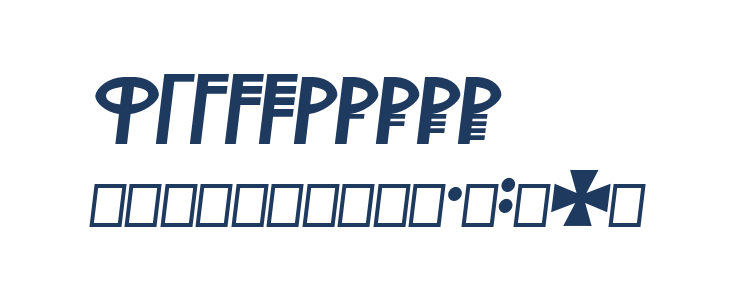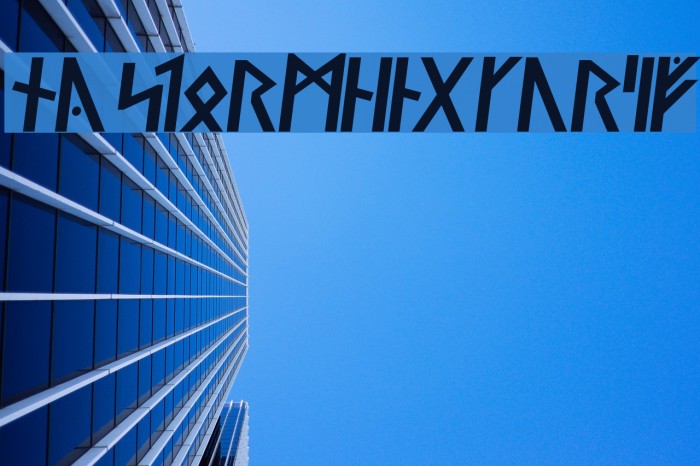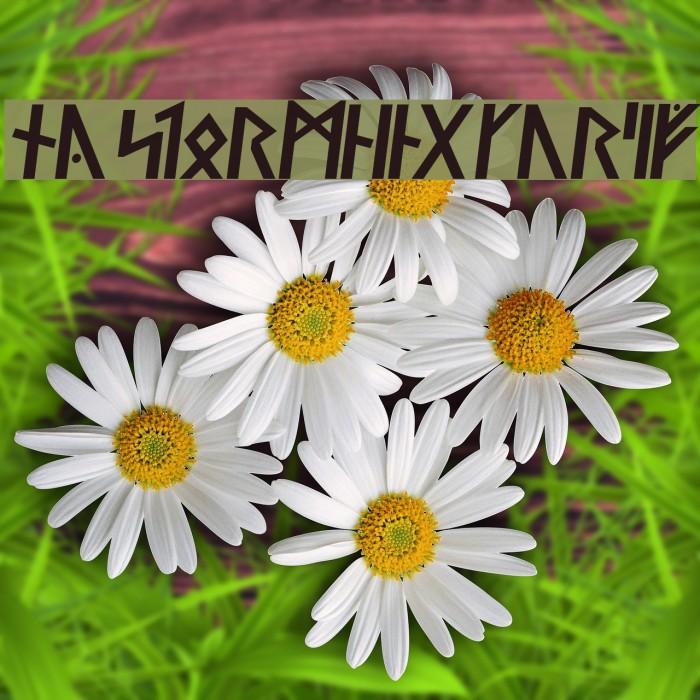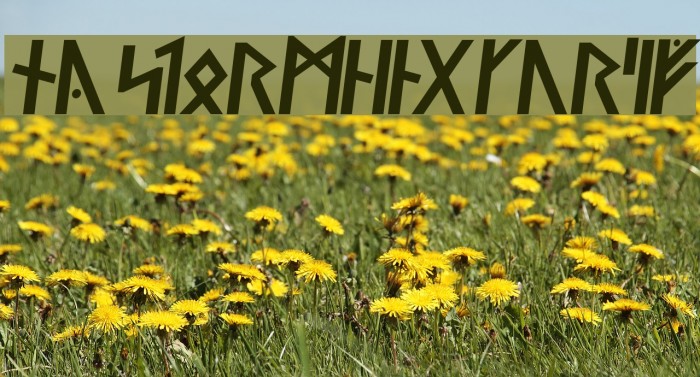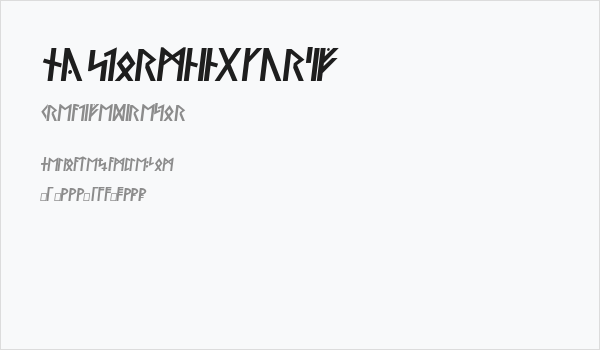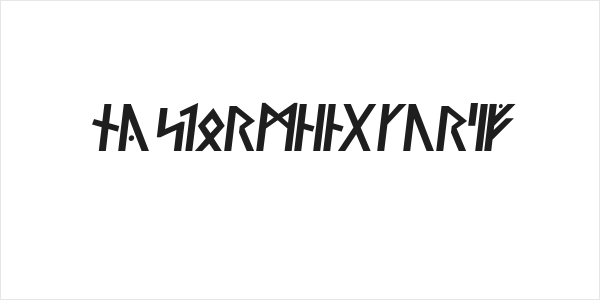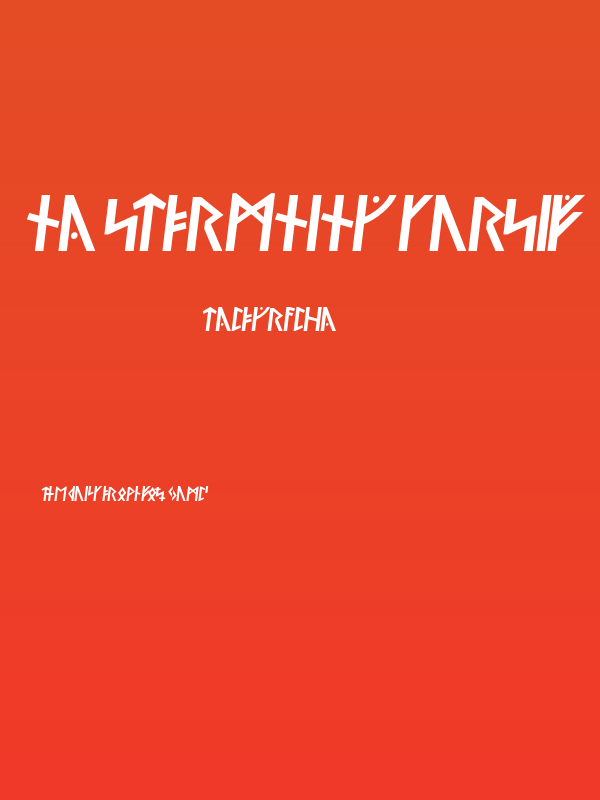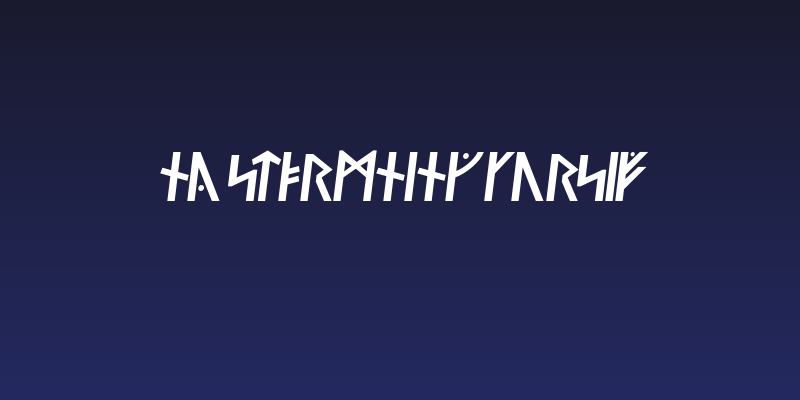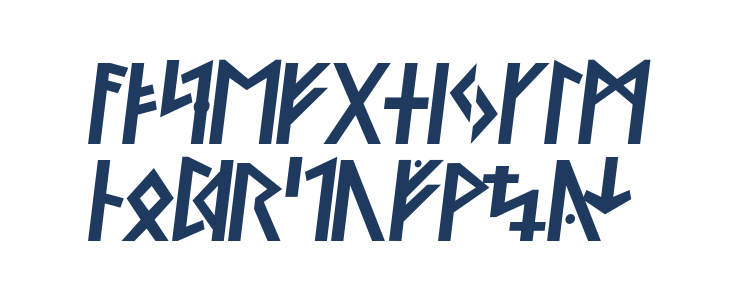
Ny Stormning Kursiv Font
Ny Stormning Kursiv Description
This font features a unique, angular design reminiscent of ancient runic alphabets. The characters are bold and geometric, with sharp edges and distinct, stylized forms. Each letter has a strong presence, making it ideal for attention-grabbing designs. The uppercase and lowercase letters maintain a consistent style, with variations in height and width that add visual interest. The numbers and special characters follow the same angular theme, ensuring a cohesive look across all text elements. This font's distinct style makes it suitable for projects that require a bold, historical, or mystical aesthetic.
| Proposed Projects | Ideal for fantasy-themed designs, historical projects, game titles, and logos requiring a mystical or ancient look. |